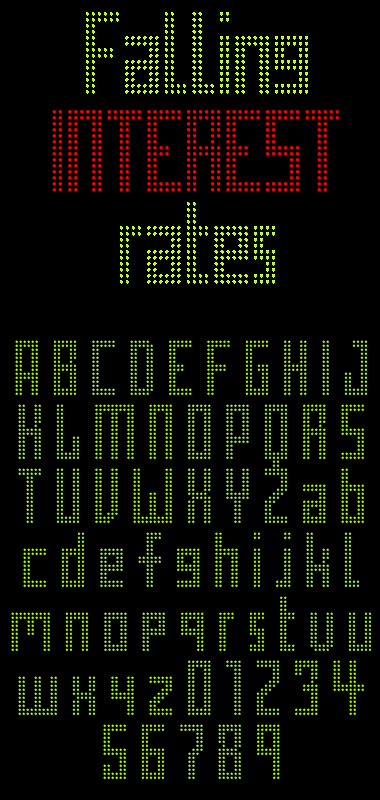
Interest
Another imitation...
FF Pop LED Min Regular
Nice LED, works well.
Although I think the spacing would need tweaking on a couple of the character combinations, and I also think the g,j,p,q,y, would work better if the went below the line.
Thanks for the compliments. None of the letters drop below the line because LED screen usually don't have letters like that.